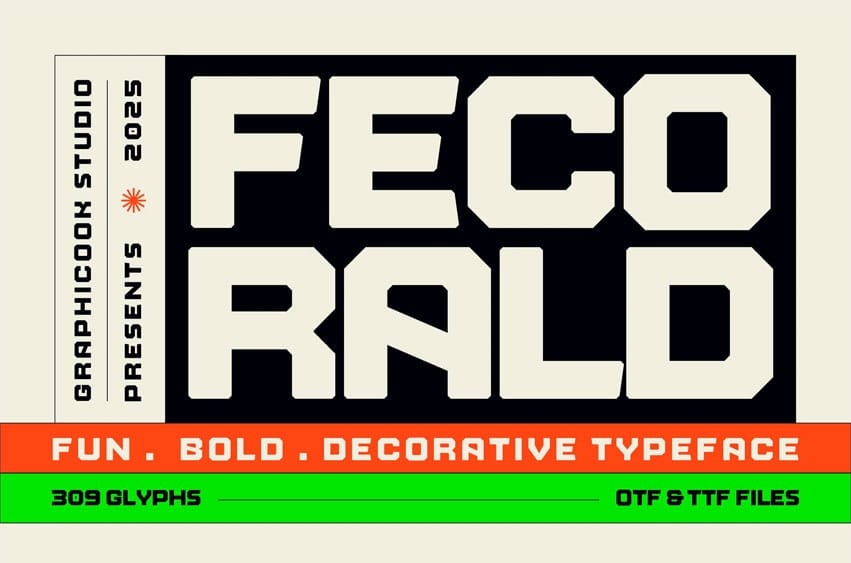
Fecorald Font is a decorative font presented in a bold, modern, futuristic style. Its distinctive shapes convey strength and innovation, making it ideal for game-themed designs, industrial concepts, or tech-focused logos.
Fecorald is perfect for headlines, logotypes, magazines, packaging, quotes, movies, games, cover albums, book covers, and flyers, it’s a perfect solution for creating eye-catching designs that stand out in any context.